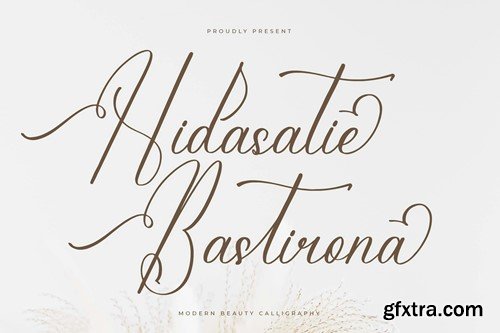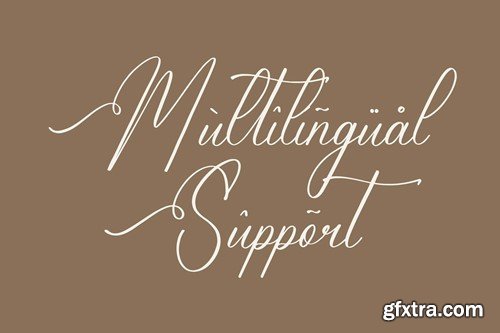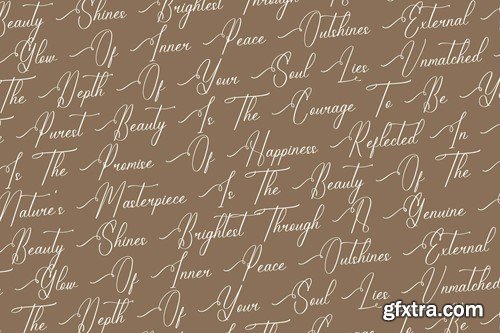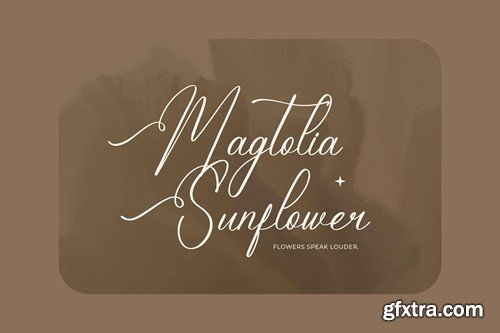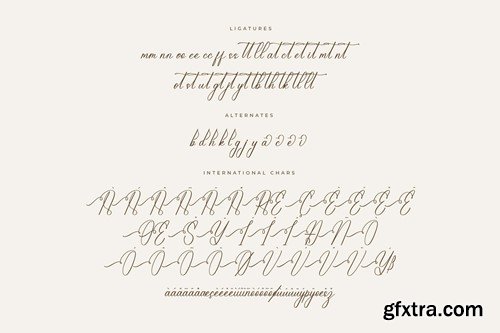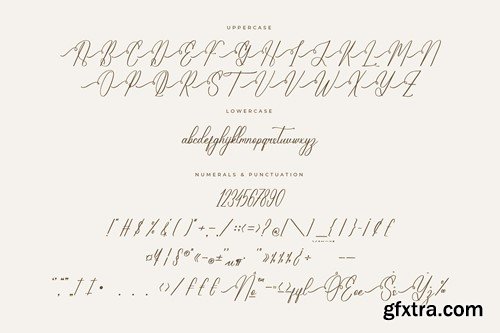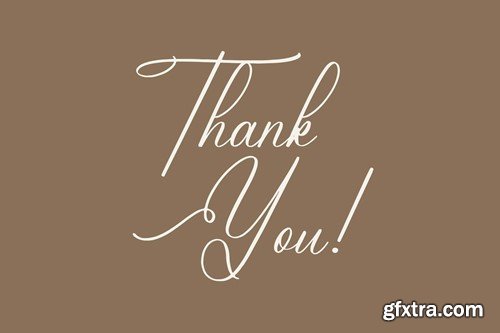
Hidasatie Bastirona Modern Calligraphy Font 98TA98H
Hidasatie Bastirona Modern Calligraphy Font
Hi ladies & gentlemen, this is one of our fonts suitable to complement your digital and printed creative products. This font is perfect for posters, social media posts, branding, personal projects, etc.